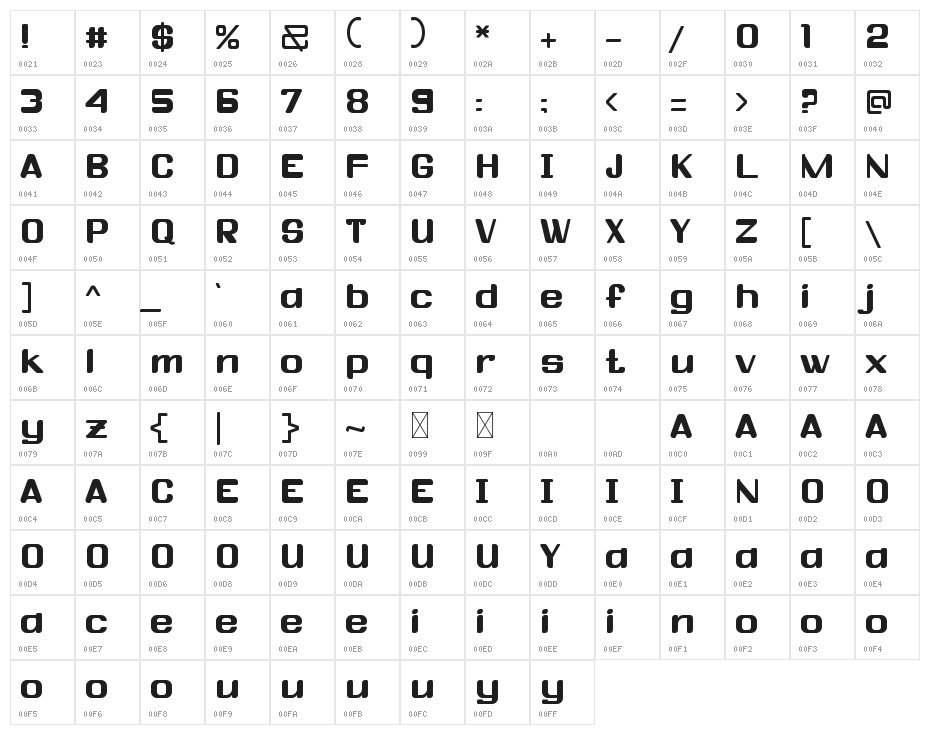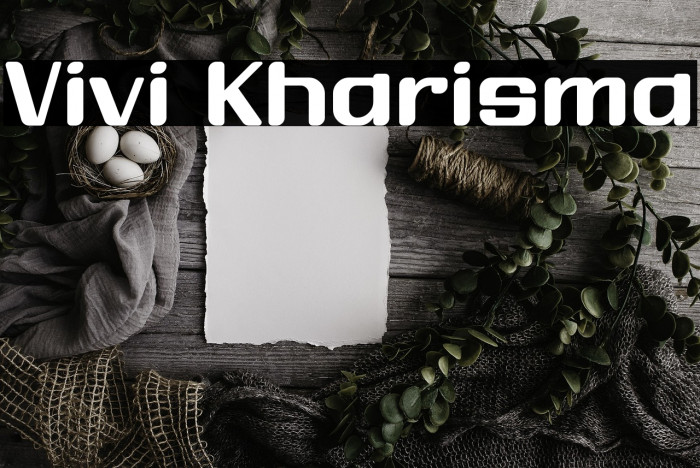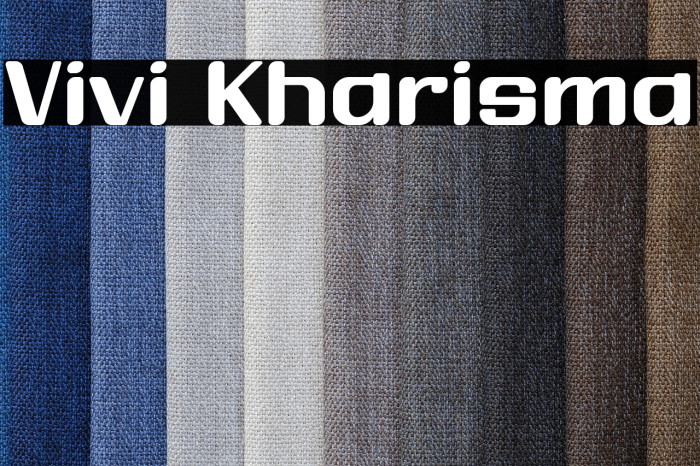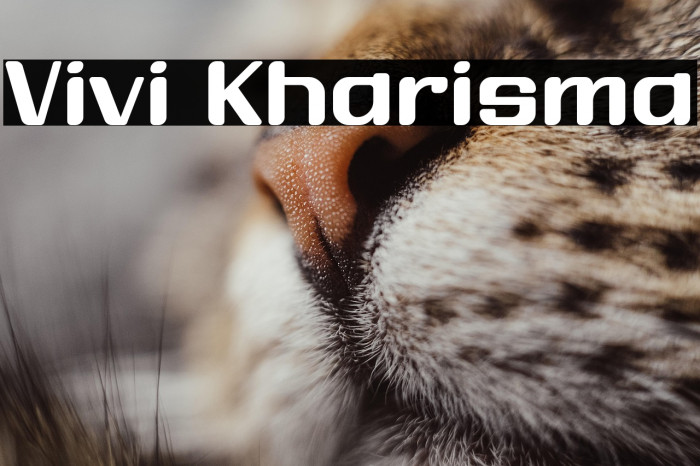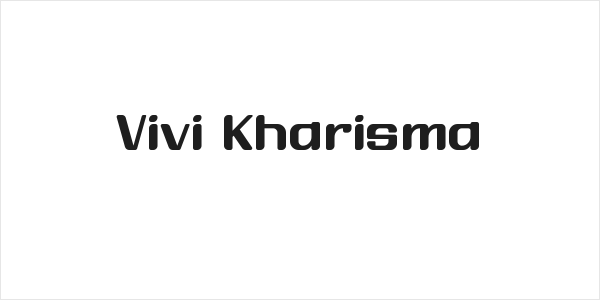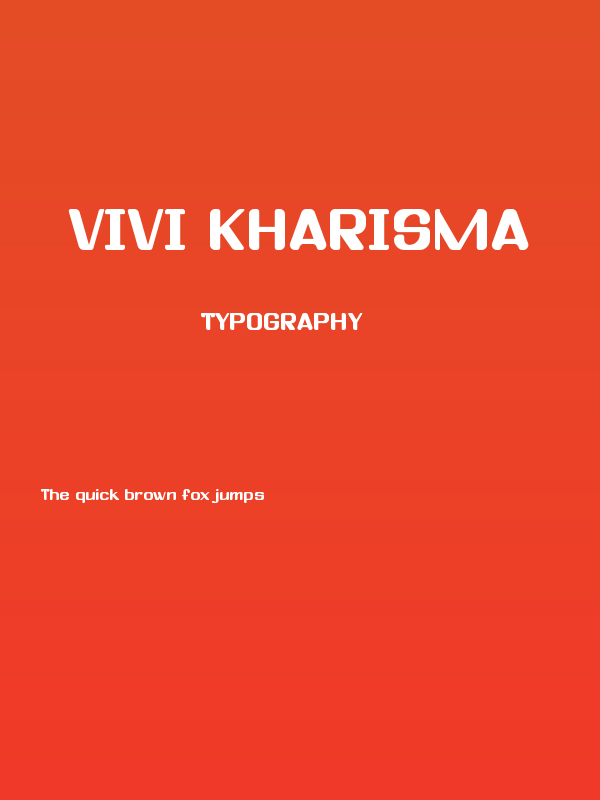
Vivi Kharisma Font
Vivi Kharisma Description
This font features a bold and modern design with rounded edges and a geometric structure. The characters are uniformly thick, providing a consistent and sturdy appearance. The uppercase letters are slightly taller than the lowercase, maintaining a balanced proportion. The numerals are clear and distinct, making them easily readable. Special characters are designed with the same boldness and rounded style, ensuring uniformity across all symbols. The overall look is clean and contemporary, suitable for various digital and print applications.
| Use Case | Headlines, Logos, Digital Media |
| Proposed Projects | Ideal for branding, advertising, digital media, and editorial design projects. |